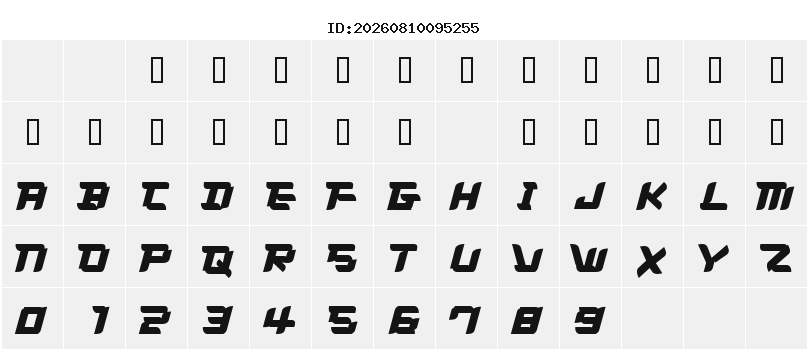
PB008 HIGHWAY STAR 2003 Preview
• Font Name: PB008 HIGHWAY STAR 2003
About PB008 HIGHWAY STAR 2003.ttf
PB008 HIGHWAY STAR 2003.ttf is a modern, elegant sans-serif font designed for ultimate readability and visual harmony. Perfect for branding, headlines, web design, and print materials.